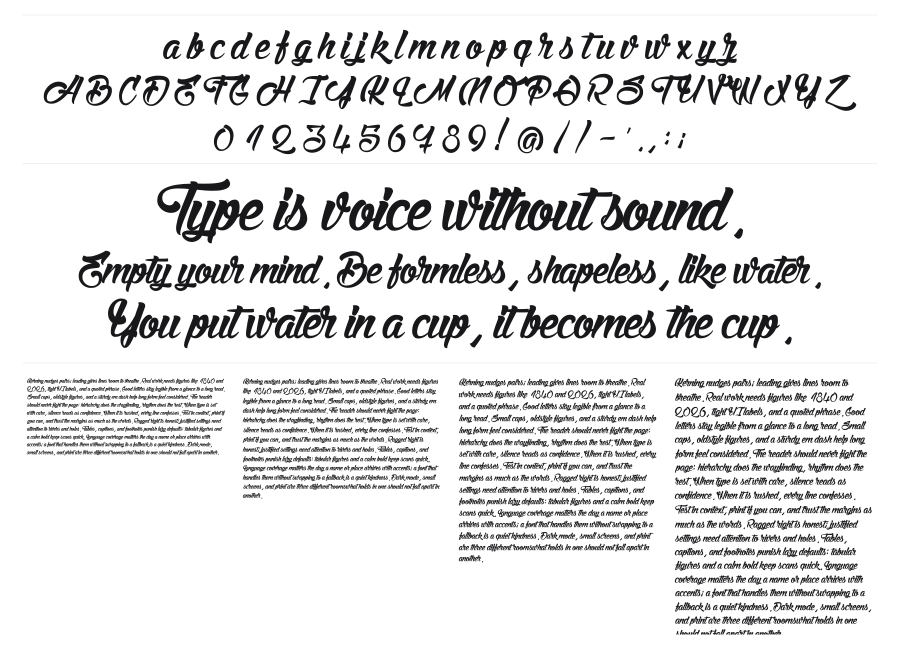
Stink on the Death
Stink on the Death is a thick, expressive brush face by Maelle.K and Thomas Boucherie with bold, sweeping strokes that feel fast and physical, like ink dragged across paper with real urgency. The letterforms are casual but carry serious weight, giving them a raw, poster-ready energy. Built for headlines and display use where you want type that looks like it was painted in one take.